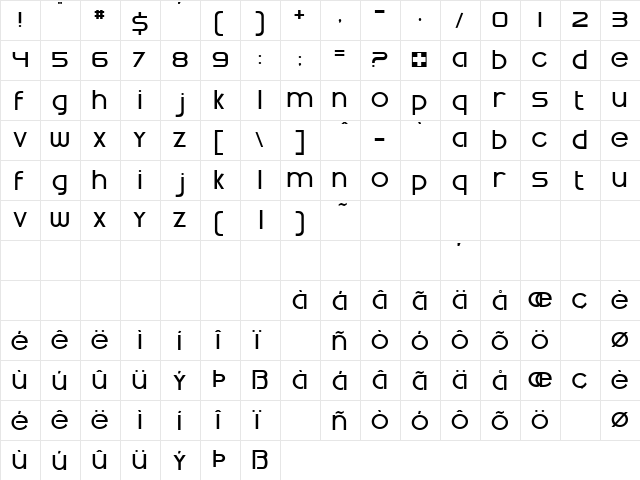
What time is it? Regular
Design Context for What time is it? Typeface
What time is it? offers clean, dependable letterforms without strong stylistic allegiance, making it a practical choice for designers who need flexibility.